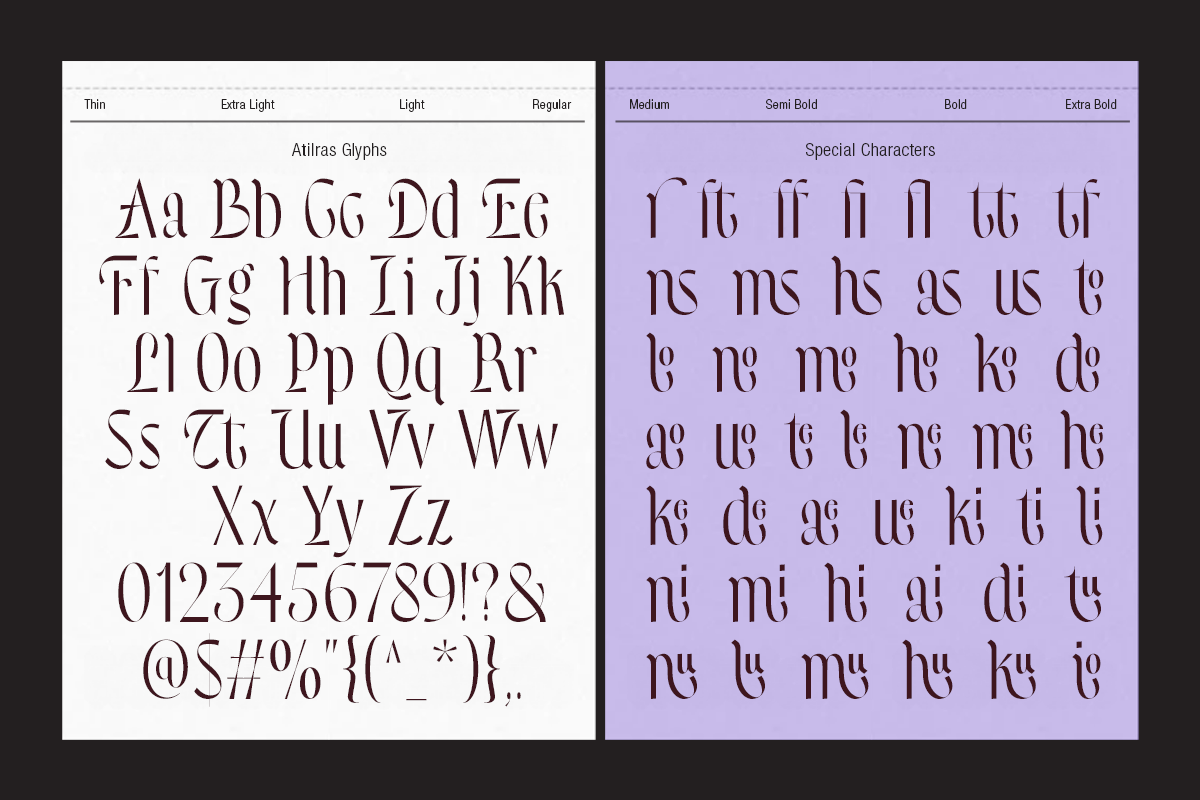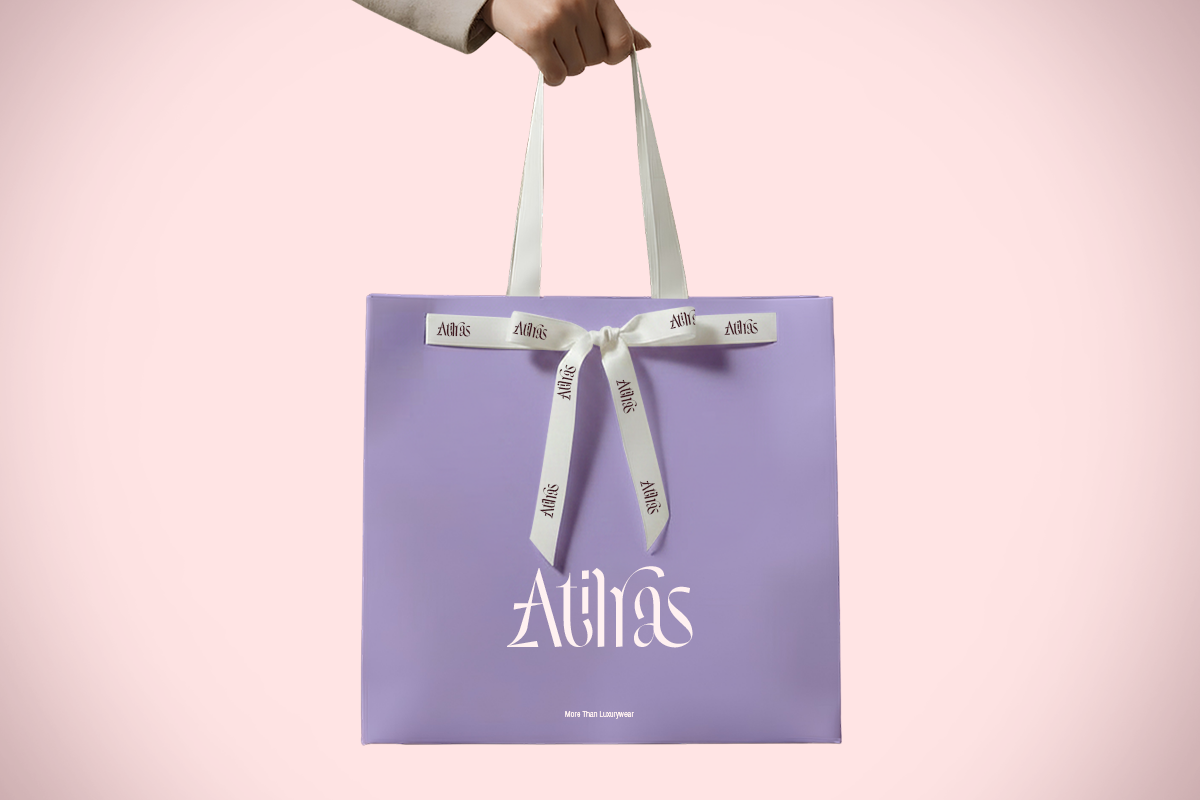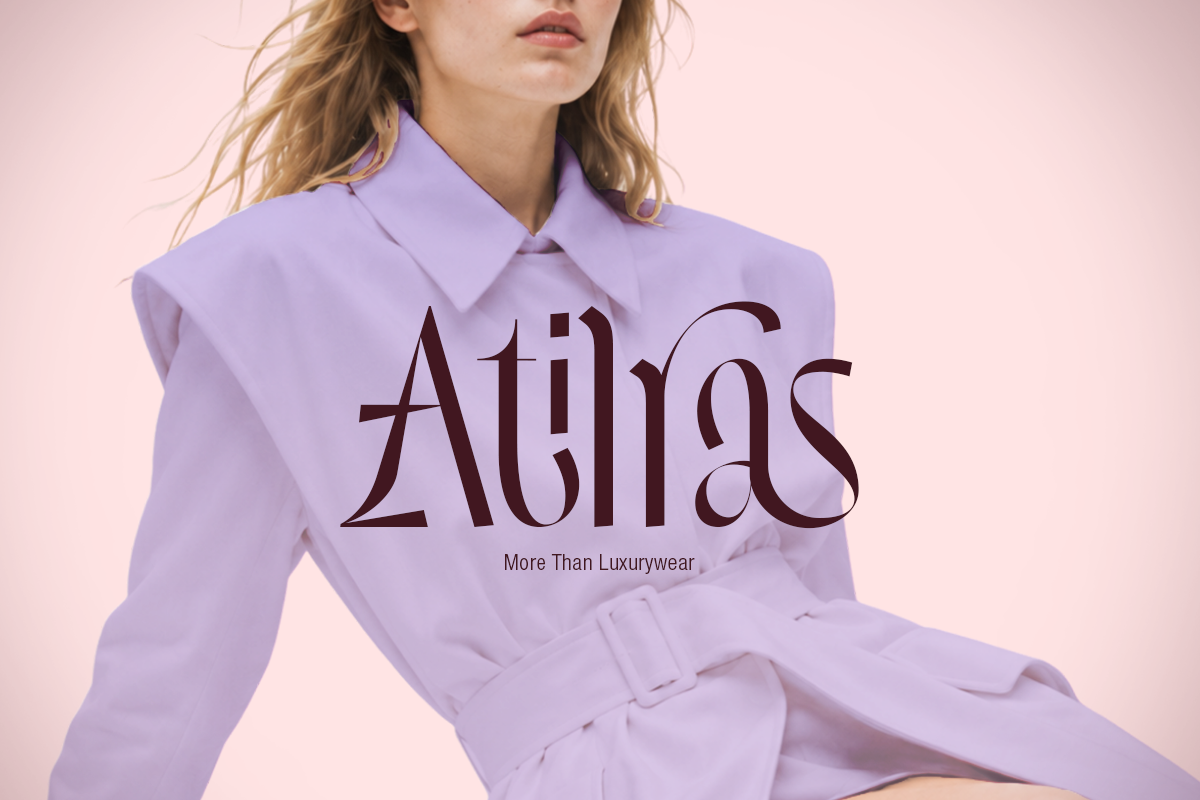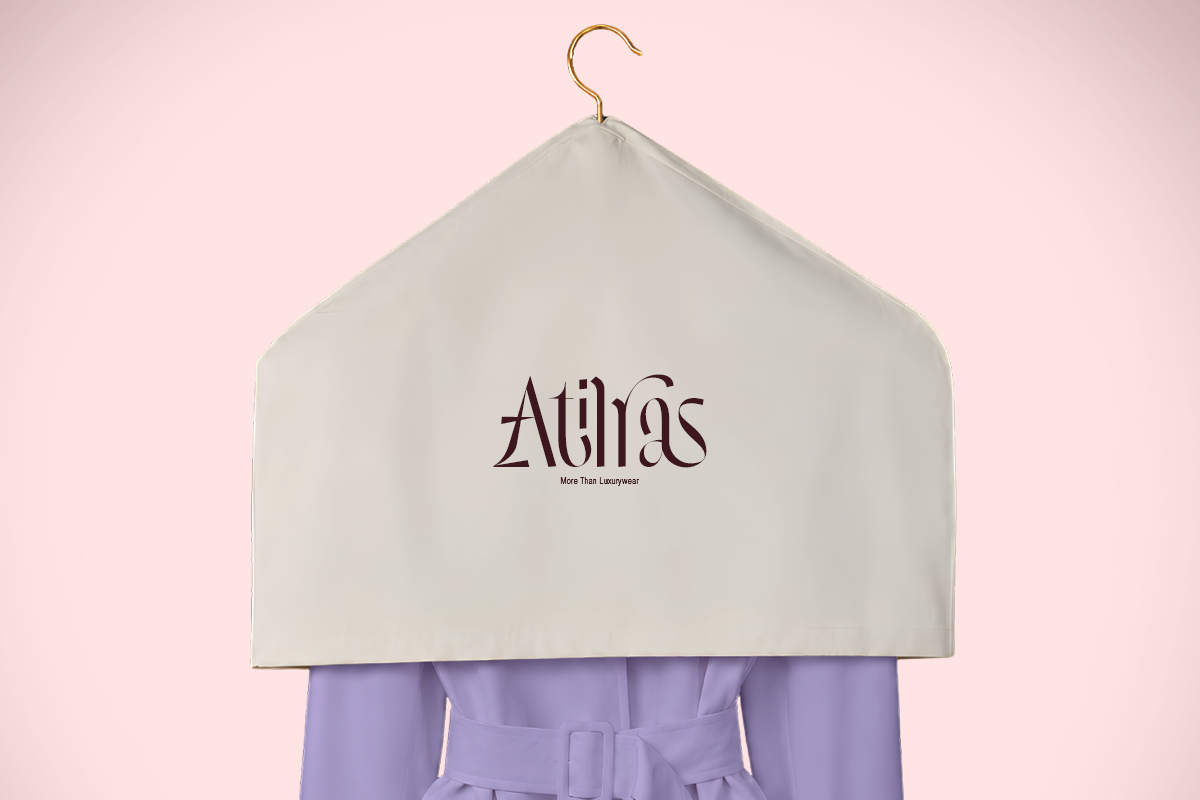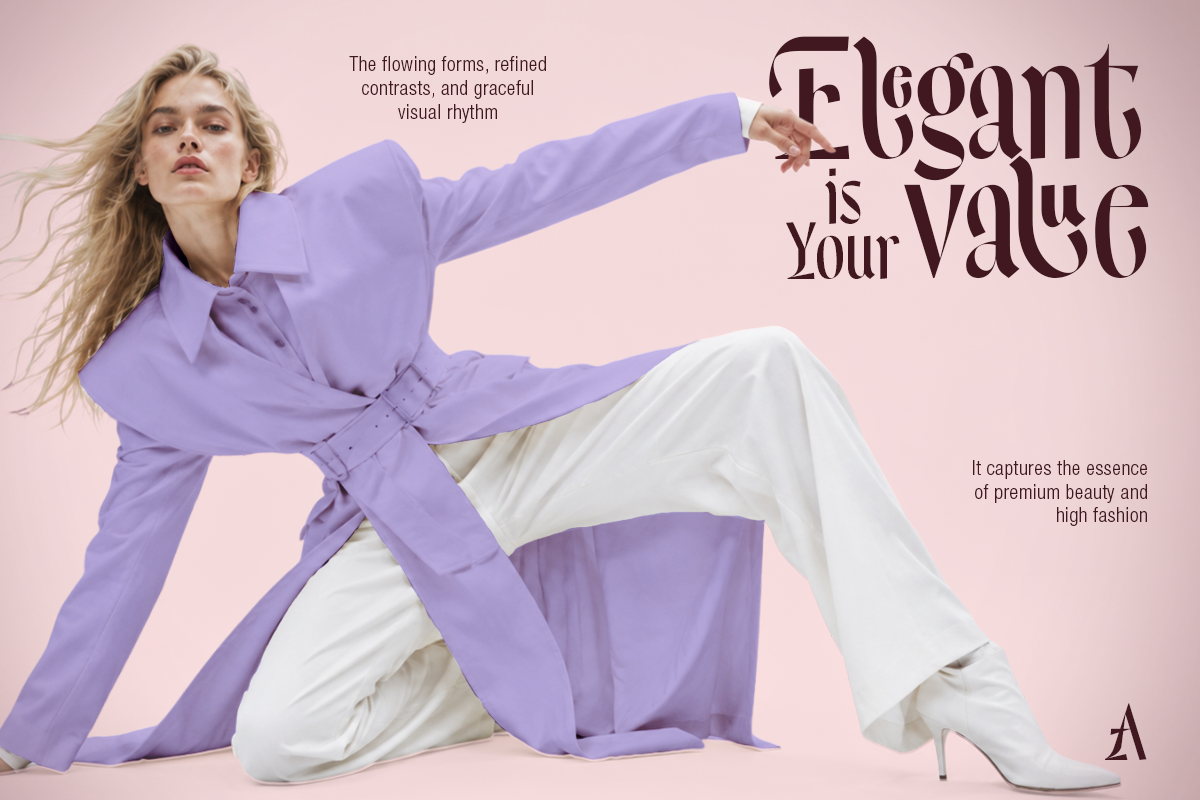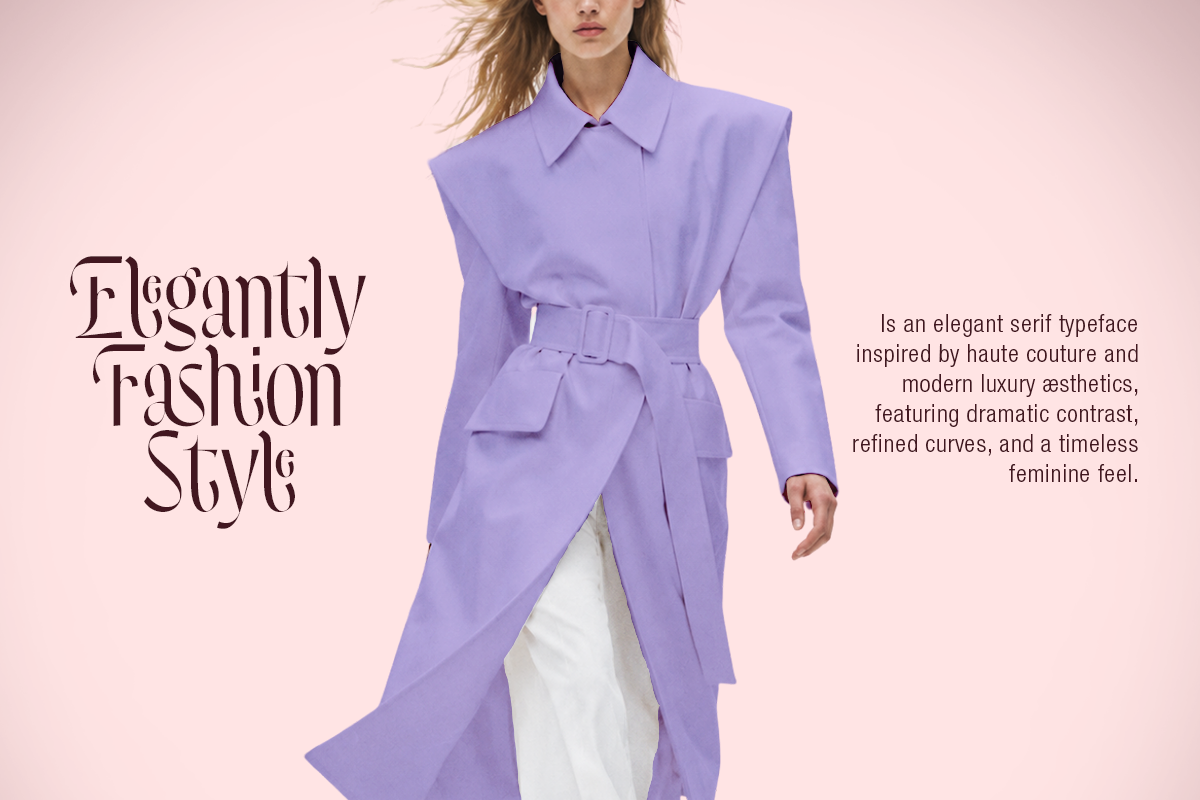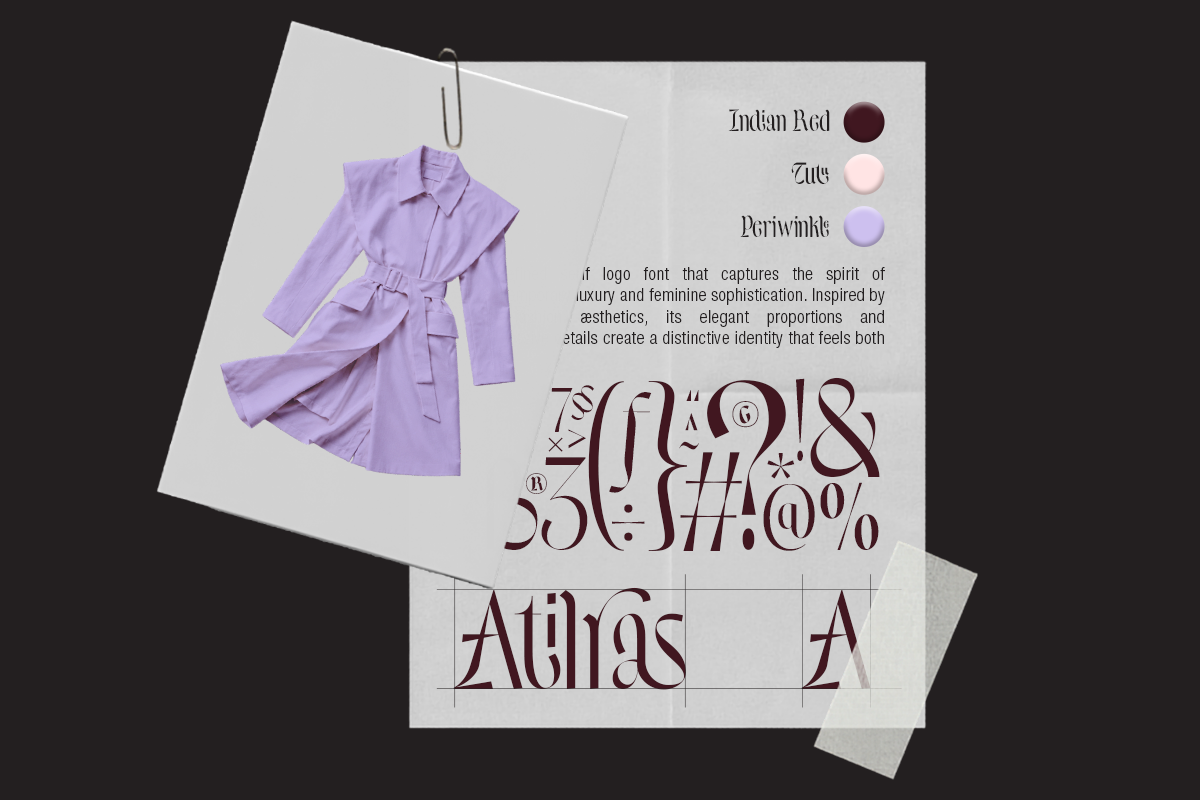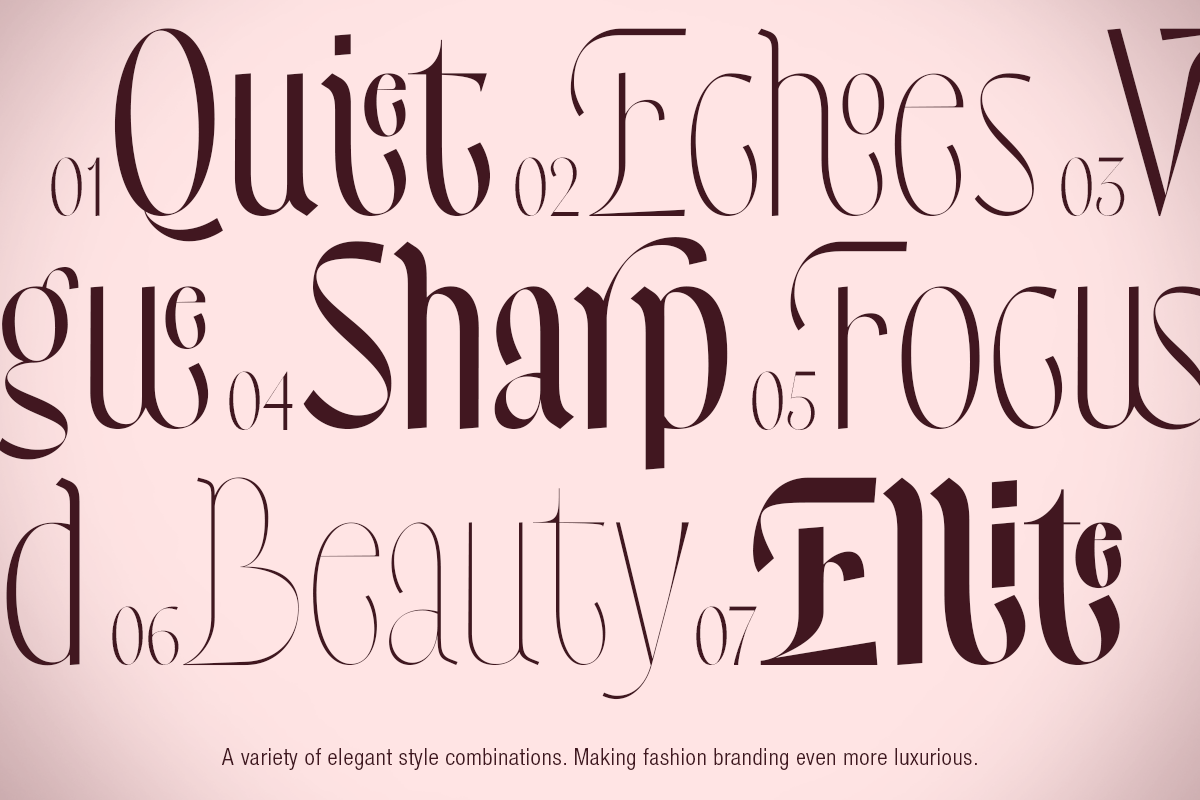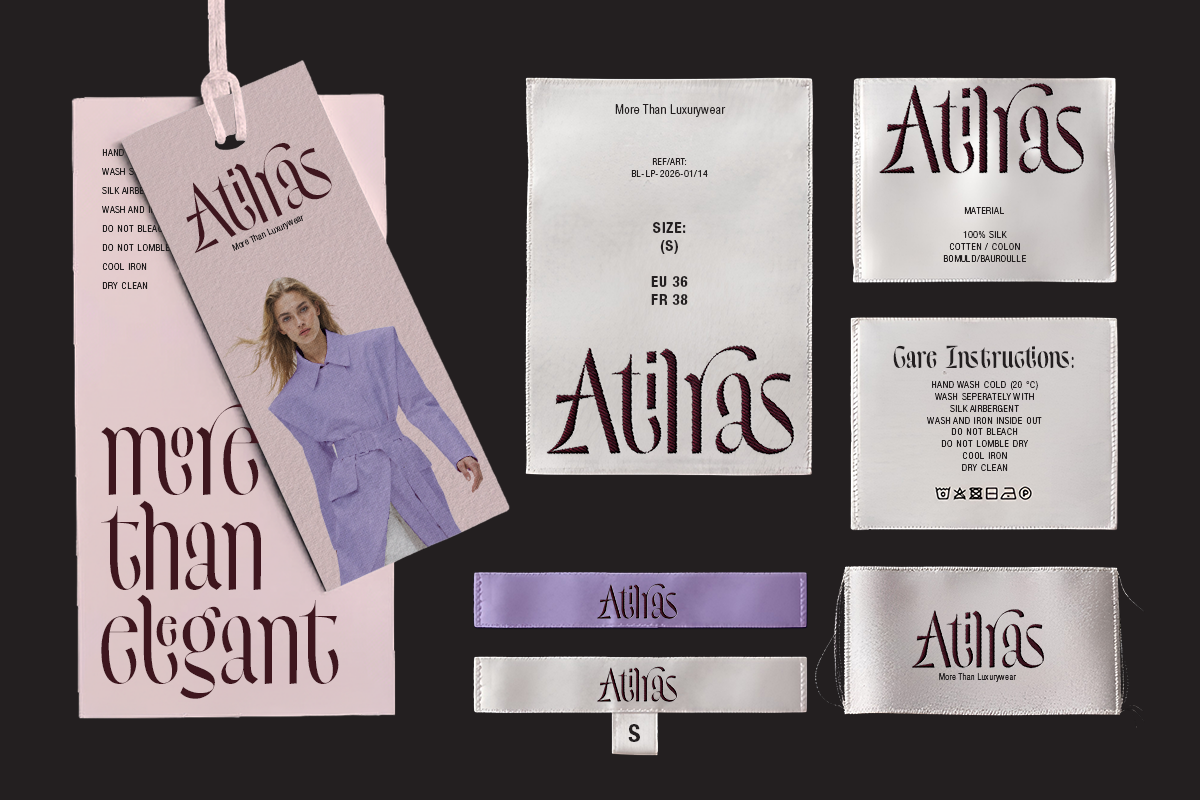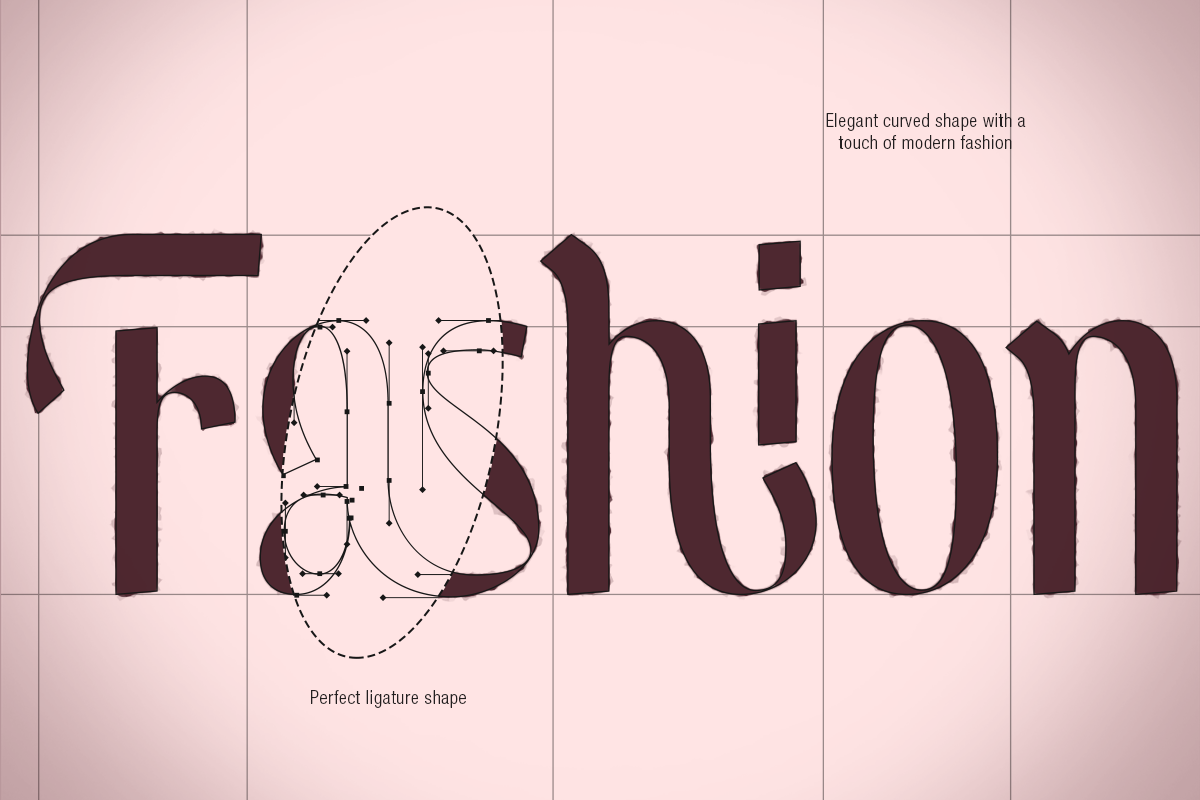
Dh Atilras - 8 Fashion Serif Family
Dh Atilras is a sophisticated fashion serif family designed to bring elegance, luxury, and editorial beauty into every design. Featuring 8 versatile styles: Thin, Extra Light, Light, Regular, Medium, Semi Bold, Bold, and Extra Bold, this typeface offers complete flexibility for creating refined visual identities. Its high-contrast letterforms, graceful curves, and distinctive details make it perfect for fashion branding, luxury logos, magazine layouts, beauty campaigns, cosmetics packaging, lookbooks, social media content, and premium marketing materials.
To enhance creative possibilities, Dh Atilras includes 42+ fashion alternates and ligatures, allowing designers to craft unique and expressive typography with ease. The family also comes with a Variable Font for seamless weight adjustments and a Type Specimen PDF for convenient exploration of all features. Whether used for headlines, editorials, branding, packaging, or luxury-inspired designs, Dh Atilras delivers a timeless and fashionable aesthetic that stands out with confidence and sophistication.
Dh Atilras Font Features:
8 Weights: Thin, Extra Light, Light, Regular, Medium, Semi Bold, Bold, Extra Bold
42+ Fashion Alternates and Ligatures
Letters, numbers, symbols, punctuation, special alternates